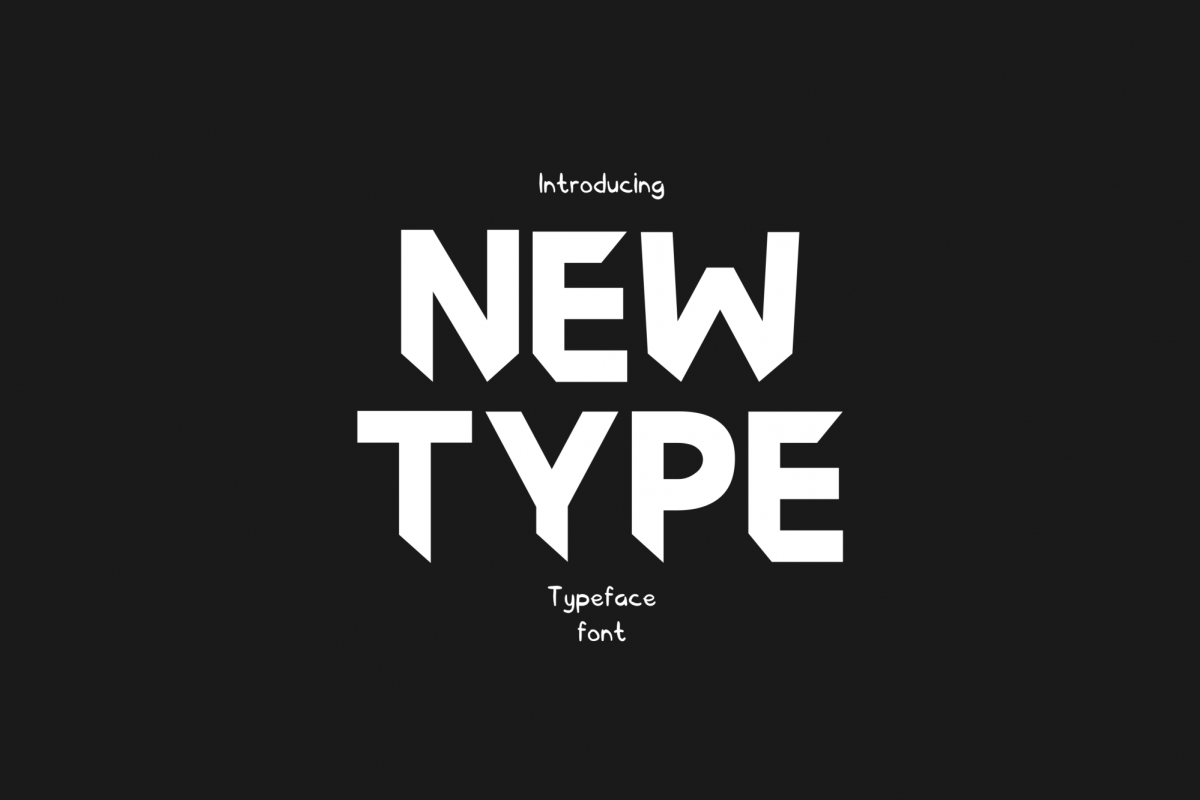
Newtype Typeface Font
Newtype
Newtype Typeface Font
Meet back with us. Today we will present a fresh and unique font. This font is suitable to use in a variety of case designs, like banner, t-shirt, logo, name card and etc.